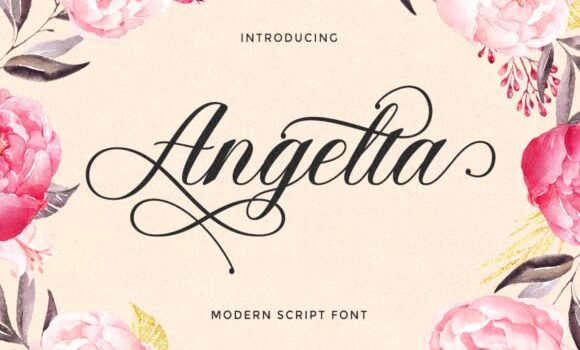
Angelta Font – Free Download Introduction to Angelta Font Angelta is an elegant and flowing handwritten font. 📸 Preview Gallery 6 images 📌 Product Name Angelta Font 👤 Author LetterFreshStudio 📂 Category Explore ⬇️ Download Angelta Font FREE Free Download